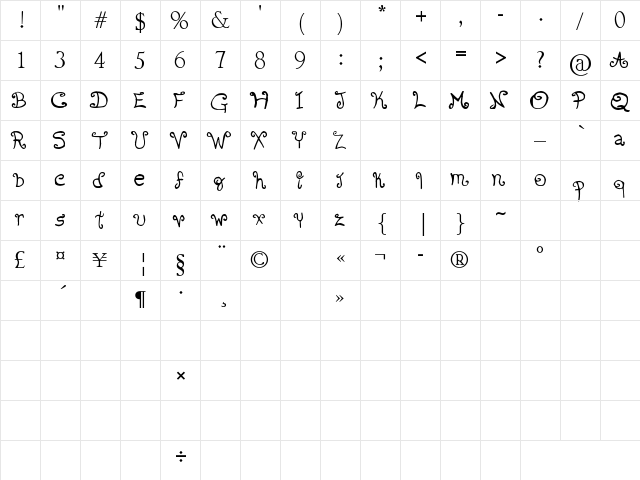
romanticfont2 Regular
Design Context for romanticfont2 Typeface
romanticfont2 is a composed and adaptable typeface that performs quietly and consistently across a wide range of design contexts.